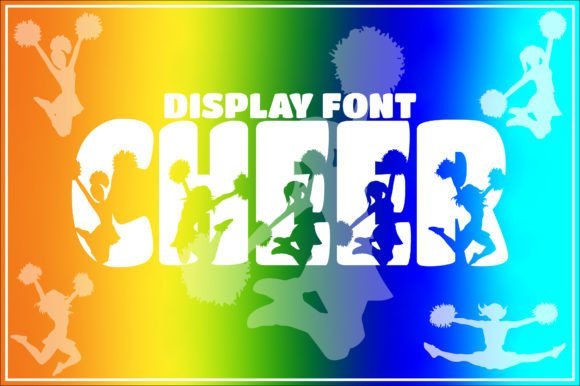
Unlock the Joy in Your Designs with Cheer Font
Who hasn’t experienced that moment when a burst of creativity hits you, and you can’t wait to bring your idea to life? For designers, it’s the spark that sets off a chain reaction of inspiration, leading to innovative and captivating projects. And sometimes, all it takes is the right font to amplify that spark. That’s where Cheer Font comes in – a cool and original-looking decorative font that adds a touch of joy to any design.
Whether you’re working on a cartoon-related design, children’s game, or book cover, Cheer Font is a great choice. Its playful and cheerful vibe is sure to bring a smile to the faces of your audience. For designers, it’s a valuable asset that can elevate their work and make it stand out in a crowded market. With Cheer Font, the possibilities are endless, and the joy is contagious!
Cheer Font Key Features
- Font Family: Cheer Font is a sans-serif font family designed for digital use.
- Size and Resolution: Designed for use at various sizes and resolutions, including small font sizes and high-resolution displays.
- Unique Characteristics: Cheer Font features a clean and modern design with rounded edges and a friendly feel, making it suitable for a wide range of applications, including digital signage, advertising, and user interface design.
- Language Support: Cheer Font supports a wide range of languages, including Latin, Cyrillic, and Greek alphabets.
- Kerning and Ligatures: Cheer Font includes advanced kerning and ligature tables to ensure optimal spacing and readability.
Designer Review: Cheer Font
When I first laid eyes on the Cheer Font, I was immediately drawn to its playful and modern vibe. ✨ The font’s bold lines and rounded edges give it a friendly and approachable feel that’s perfect for creating fun and energetic designs.
One of the things I love about Cheer Font is its versatility. ✨ It can be used for a wide range of applications, from branding and advertising to digital media and packaging. The font’s modern feel also makes it a great choice for creating a cohesive look across multiple platforms.
While Cheer Font has a lot to offer, there are a few limitations to be aware of.
- ⚠️ Limited language support: Cheer Font is only available in a limited number of languages, which may be a concern for designers working on international projects.
- ⚠️ Not suitable for formal designs: While Cheer Font is great for fun and energetic designs, it may not be the best choice for formal or professional projects where a more traditional font is needed.
Overall, I think Cheer Font is a great addition to any designer’s toolkit. While it may have a few limitations, its versatility and modern feel make it a great choice for a wide range of design projects. If you’re looking for a fun and energetic font that’s perfect for creating eye-catching designs, Cheer Font is definitely worth checking out.
The Cheer Font is perfect for creating playful and energetic designs. Here are some tips and common use cases:
- Use the Cheer Font for social media graphics, such as Instagram posts and Facebook covers.
- Apply the font to headings and titles for a fun and modern look.
- Experiment with different font sizes and styles to create a unique and eye-catching design.
Alternatives to Cheer Font for Designers
Oswald
Oswald is a sans-serif font with a strong, modern feel. It’s great for headlines, titles, and other display text where you want to make a bold statement. Oswald has a similar feel to Cheer Font, but with a more geometric and industrial aesthetic.
Playfair Display is an elegant, high-end serif font with intricate details and flourishes. It’s perfect for luxury brands, fine art, and other applications where you want to convey sophistication and refinement. Unlike Cheer Font, Playfair Display is more ornate and less playful.
Montserrat is a sans-serif font with a clean, urban feel. It’s great for body text, menus, and other applications where you want a modern and approachable look. Montserrat is more versatile than Cheer Font and works well in a variety of contexts.
Abril Fatface is a modern, sans-serif font with a bold and playful feel. It’s perfect for titles, headings, and other display text where you want to add a touch of whimsy and personality. Unlike Cheer Font, Abril Fatface is more eclectic and less straightforward.
Q: Is the Cheer Font available in different weights and styles?